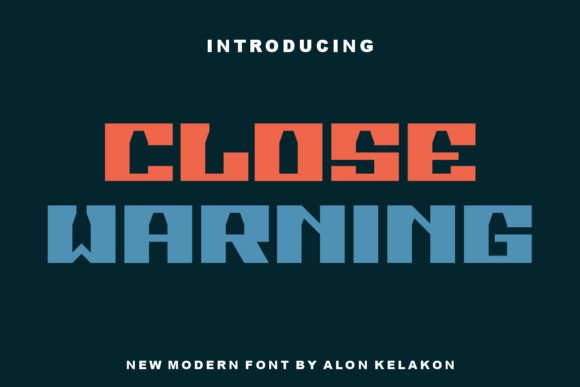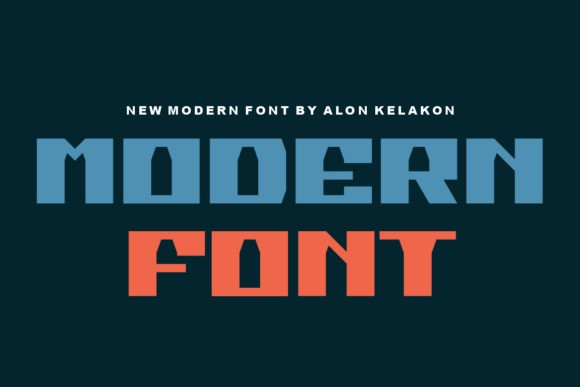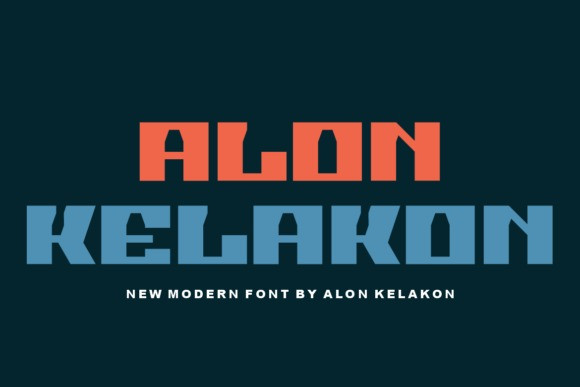
Close Warning Font
Close Warning is a unique and bold sans serif ready to use for your design like labeling, clothing, movie scenes, poster, movie title, gigs, album covers, logos, and much more.